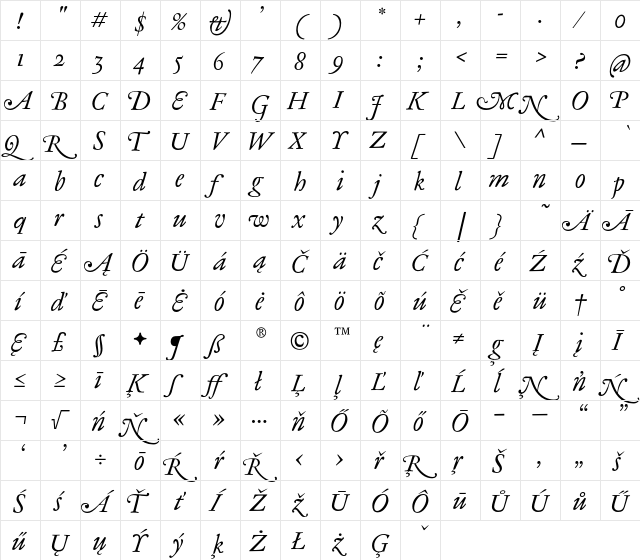
Antique Ancienne CE Italic Font Preview
Antique Ancienne CE Italic
Antique Ancienne CE Italic Font Details
Design Context for Antique Ancienne CE Typeface
Antique Ancienne CE has the warm character of retro typography — evoking diners, record sleeves, and the golden age of print advertising. The dynamic lean of this cut emphasises speed and emphasis in any layout.
Font Pairing: Combine Antique Ancienne CE with a simple slab or neutral sans — period-accurate companions reinforce the vintage feel without competing for attention.
Pro Tip: Lean into Antique Ancienne CE's period character by pairing it with aged paper textures, muted colour palettes, and vintage illustration styles.